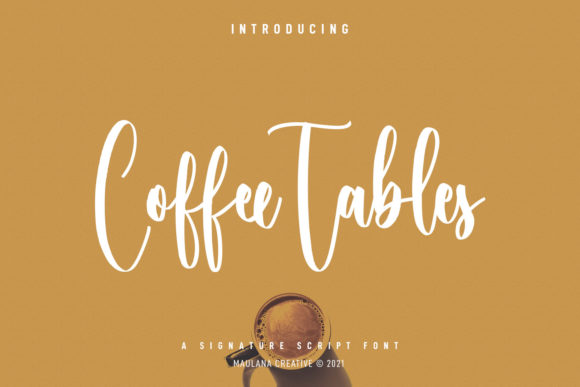
Coffee Tables Script: A Stylish Handwritten Font
Looking for a font that adds elegance and personality to your designs? Coffee Tables Script is a flowing handwritten font that brings a fresh, modern twist to traditional calligraphy. Itβs the perfect choice for anyone wanting to add a touch of sophistication to their projects without sacrificing style.
What Is Coffee Tables Script?
Coffee Tables Script is a beautifully crafted font inspired by classic calligraphy but with a contemporary feel. Its smooth, flowing lines and graceful curves make it stand out from more rigid typefaces. Whether you're designing a logo, creating a website, or working on a print project, this font adds a personal, artistic flair that's hard to ignore.
This font is especially appealing because it feels both professional and approachable. It maintains the elegance of hand-written script while being easy to read and use in various contexts.
Key Features of Coffee Tables Script
- Flowing Design: The font has a natural, fluid look that mimics handwriting.
- Classy Calligraphic Influence: Inspired by traditional calligraphy, it offers a timeless appeal.
- Contemporary Feel: Modern updates make it suitable for today's digital and print media.
- Versatile Usage: Works well for both formal and casual design needs.
Why Choose Coffee Tables Script?
If you're looking to elevate your design work, Coffee Tables Script can be a game-changer. Its unique blend of elegance and simplicity makes it ideal for a wide range of creative applications. Here are just a few reasons why it might be the right fit for your next project:
1. Adds Personality: Handwritten fonts like Coffee Tables Script give your designs a personal touch that machine-printed fonts often lack.
2. Enhances Visual Appeal: The soft curves and flowing lines of this font make it visually engaging and memorable.
3. Suitable for Multiple Uses: From branding materials to social media posts, this font adapts well to different design needs.
Where Can You Use Coffee Tables Script?
The versatility of Coffee Tables Script means it can be used in many different ways. Here are some practical examples of where this font shines:
- Branding and Logos: Use it for logos, business cards, or brand identities that need a unique and elegant look.
- Website Design: Incorporate it into headings, buttons, or navigation menus for a stylish, modern aesthetic.
- Social Media Posts: Add a personal touch to your captions or promotional content with this eye-catching font.
- Print Materials: Perfect for invitations, posters, or magazine layouts that require a sophisticated yet friendly tone.
- Educational Materials: Use it in presentations, study guides, or teaching resources to create an inviting and engaging learning environment.
3. Pair With Other Fonts: While Coffee Tables Script is beautiful on its own, pairing it with a clean sans-serif font can create a balanced and professional look.
Things to Consider Before Using Coffee Tables Script
Before diving into your design projects with Coffee Tables Script, there are a few things to keep in mind:
- Legibility: While the font is elegant, ensure it remains readable in your chosen size and context.
- Compatibility: Check that the font works well with your preferred design software and platforms.
- Consistency: Maintain consistency in your design by using the font appropriately across all elements.
Real-World Examples and Use Cases
To help you visualize how Coffee Tables Script can be used in practice, here are a few real-world scenarios:
Example 1: Restaurant Menu
A small cafΓ© wants to create a menu that feels warm and welcoming. They choose Coffee Tables Script for the headings and titles, giving the menu a cozy, artisanal vibe that matches their brand.
Example 2: Personal Blog
A blogger who writes about lifestyle and wellness uses Coffee Tables Script for their blog headers and post titles. The font adds a personal, handcrafted feel that resonates with their audience.
Example 3: Wedding Invitations
A couple planning their wedding decides to use Coffee Tables Script for their invitation cards. The font's elegant and romantic style perfectly complements the theme of their big day.
Final Thoughts
Coffee Tables Script is more than just a fontβit's a tool that can help you express creativity and bring your ideas to life. Whether you're a beginner or a seasoned designer, this font offers something special that can enhance your projects in meaningful ways. So why not give it a try and see how it transforms your work?